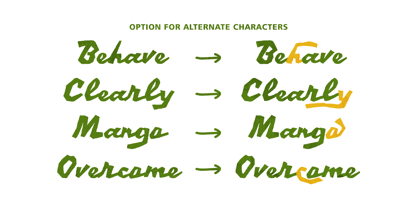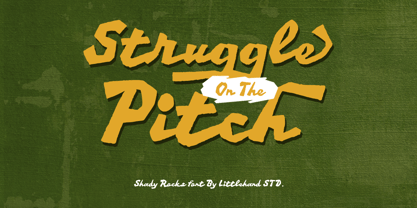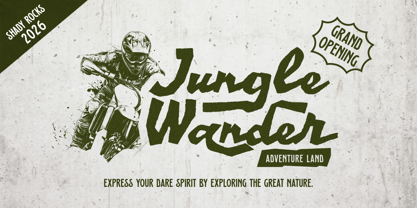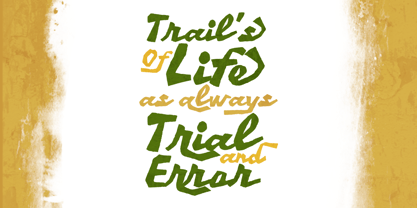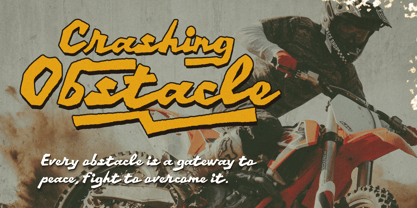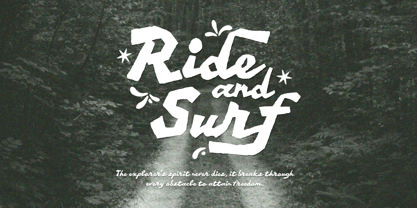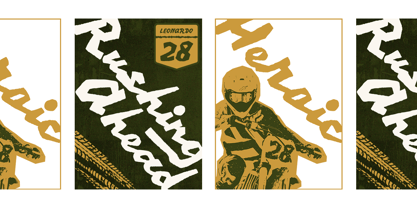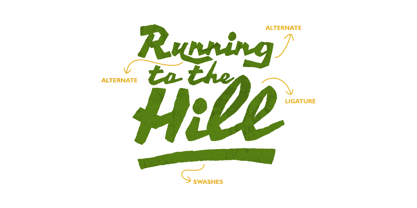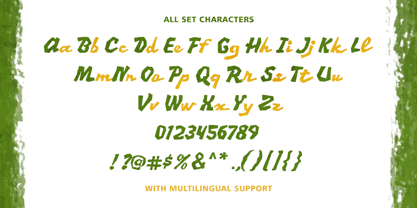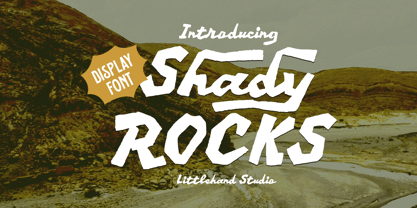
Shady Rocks
by Littlehand
The Shady Rocks Font Family was designed by Aryo Pamungkas and published by Littlehand. Shady Rocks contains 1 styles. More about this family
Bring raw energy to your next creative project with Shady Rocks, a bold display font designed to make every word stand out. Featuring hand-drawn imperfections and organic brush textures, this typeface captures the spirit of exploration, road trips, and vintage craftsmanship.
Features :
• Uppercase & lowercase
• Numbers and punctuation
• Multilingual Support